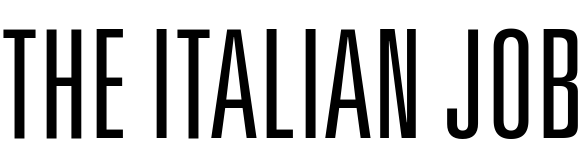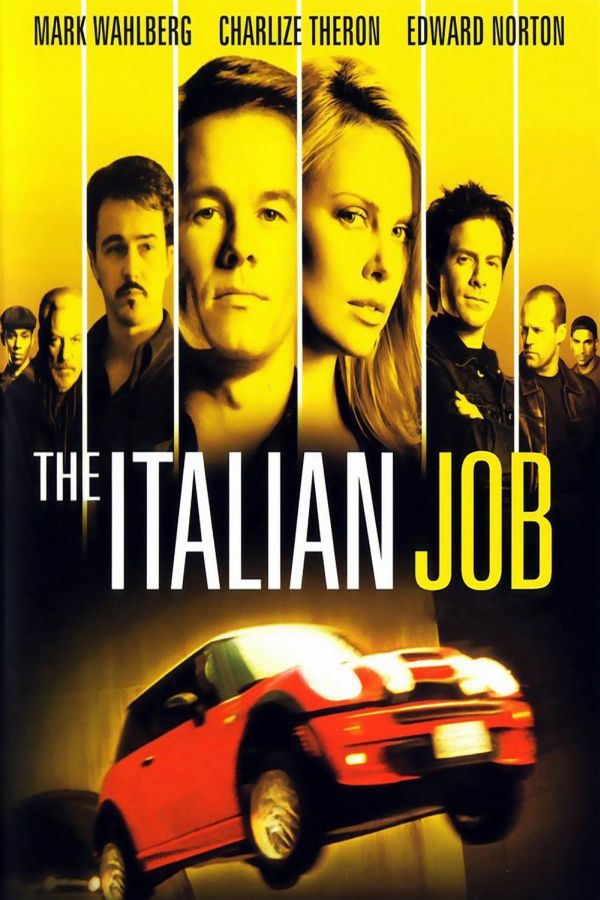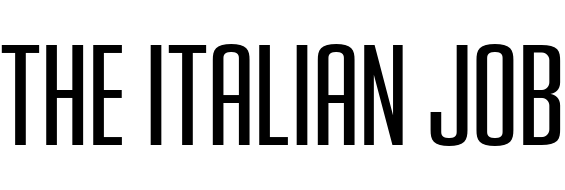
The Italian Job Font
ActionThe Italian Job is a 2003 action-packed heist film directed by F. Gary Gray, where a team of skilled thieves execute an intricate plan to steal gold in Venice and outsmart their double-crossing former ally.
The movie poster showcases a tall and condensed sans serif font that resembles fonts like Univers 49 UltraCondensed Light or House Gothic 23 Condensed Light.